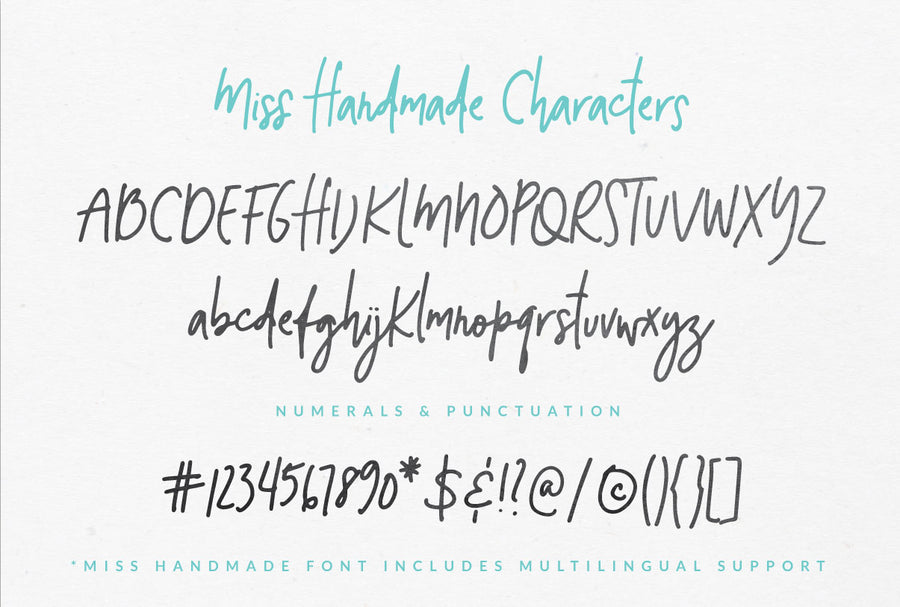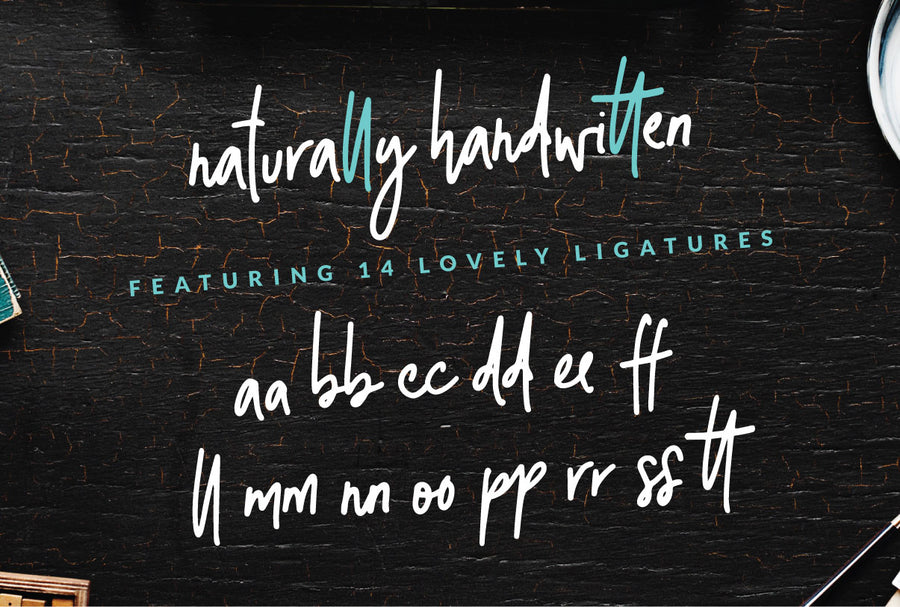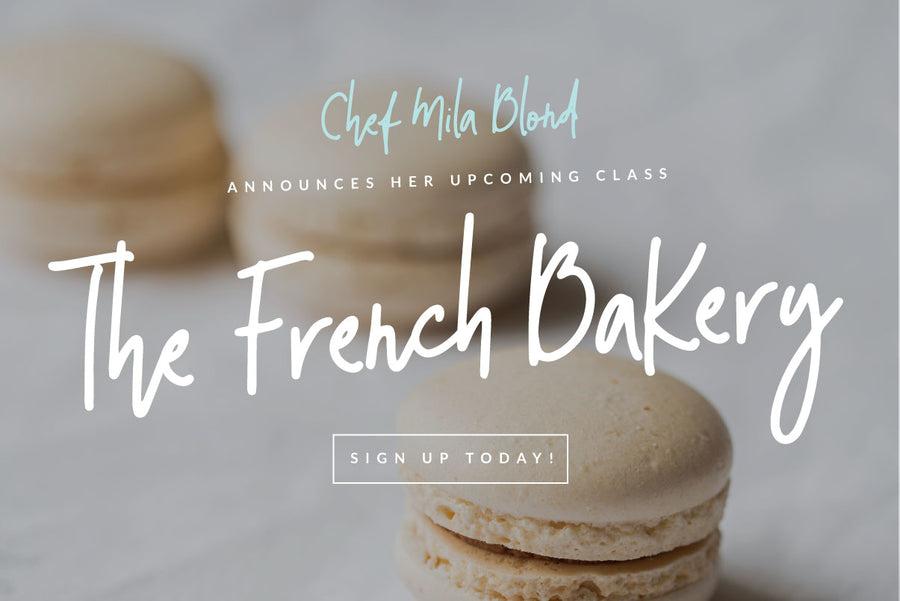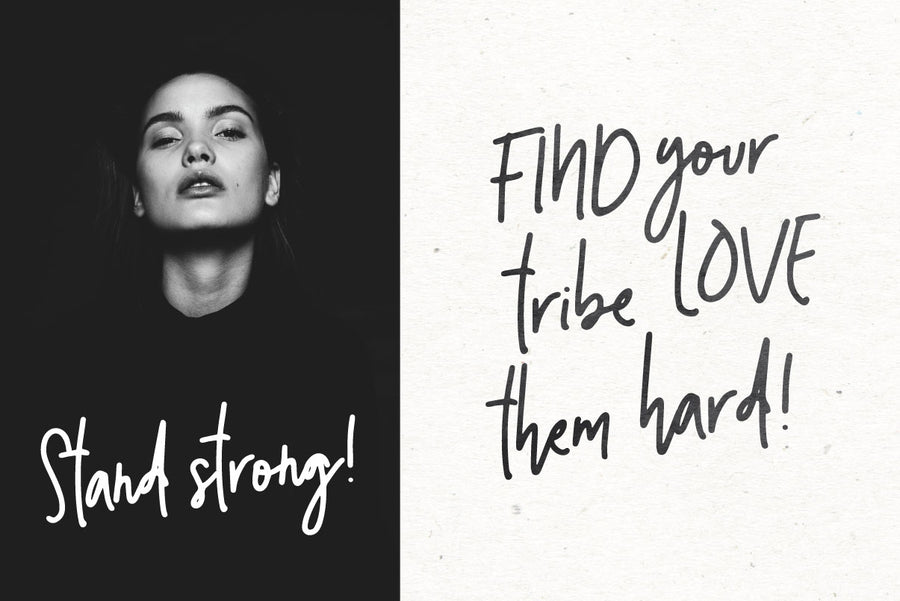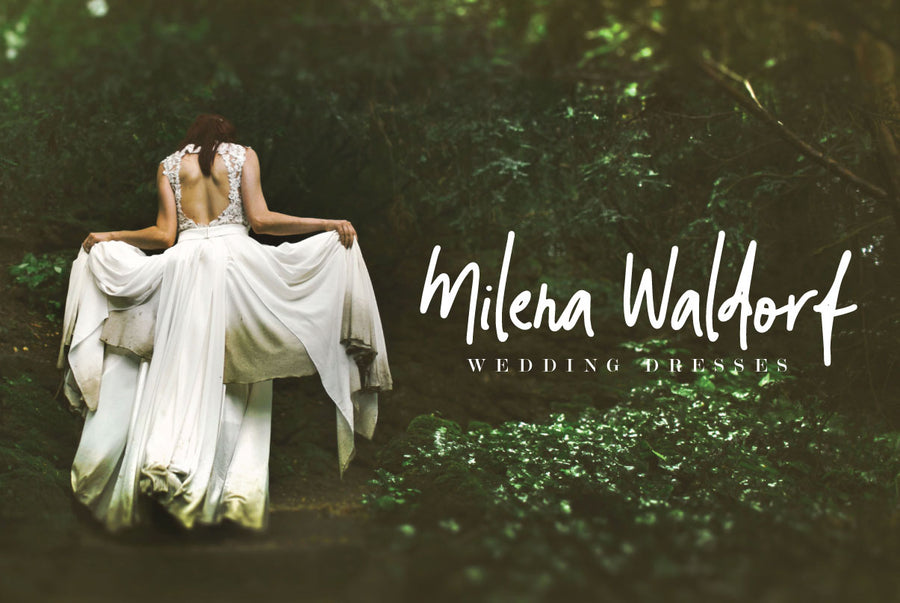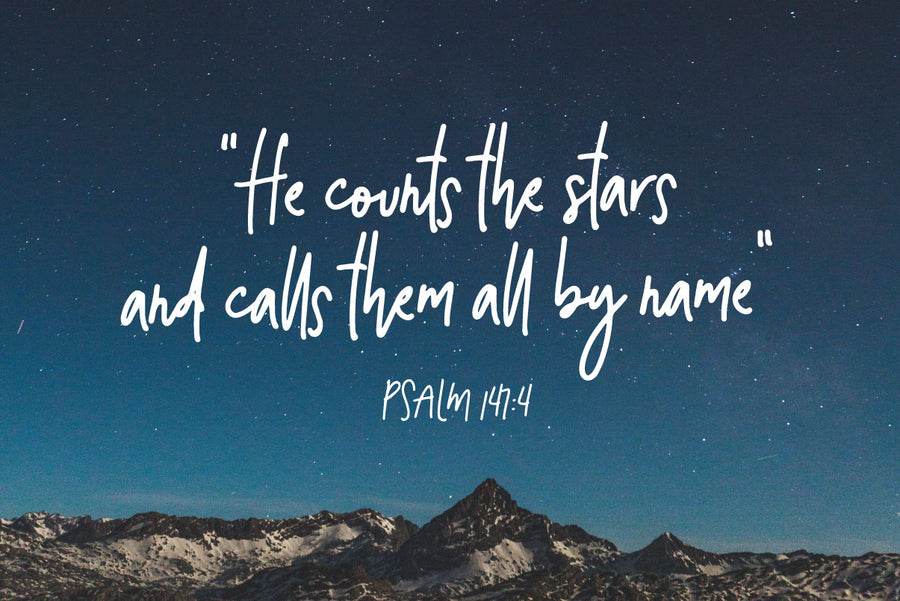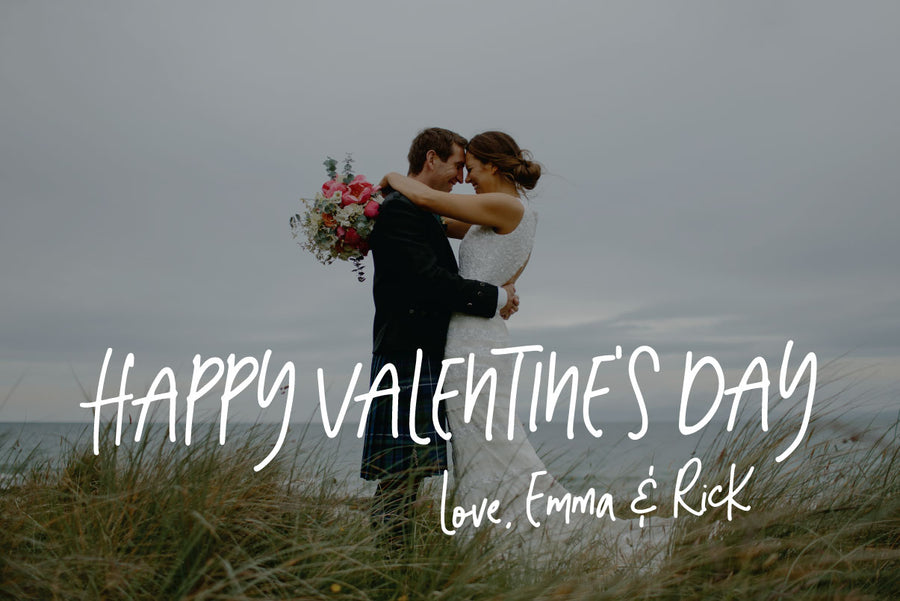
Miss Handmade Script Font
Here comes a magnificent organic and casual font, loyal to its name from head to toe: Miss Handmade Script Font
Designed as a monoline handwritten font, it features a thin stroke style perfect for body text due to its Typographic Readability and Legibility. Includes full upper and lowercase characters, as well as numerals and punctuation symbols.
Having the organic look in mind, this font comes with 14 double letter ligatures to deliver a natural style, perfectly suitable for: advertising, packaging, books, stationery, social media text imagery, as well as software and brand logos.
The most important fact is that Miss Handmade Script Font has been created with so much love, it will serve as a beautiful display and complement to any project you choose to use it.  <3